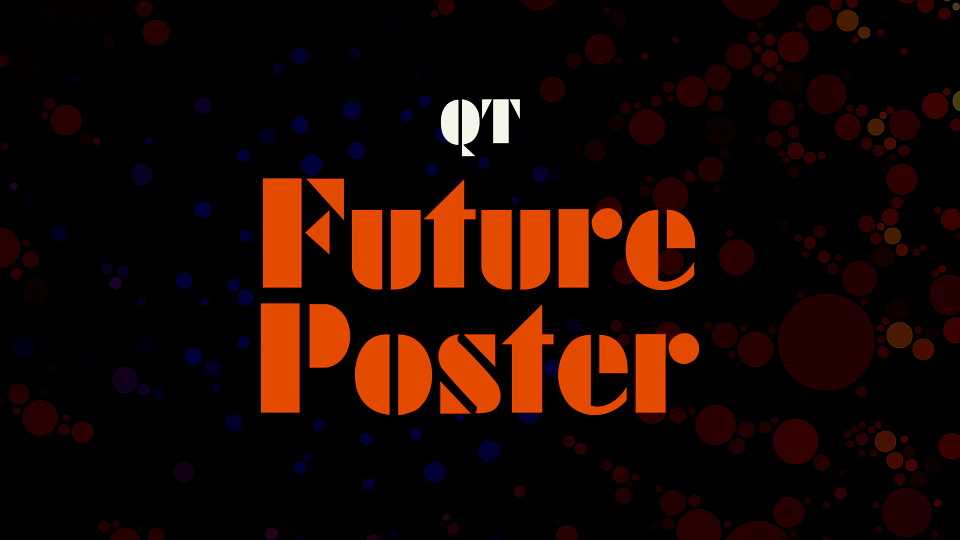
Download Future Poster font, a heavy stencil display typeface, based on the Futura Black, designed by Paul Renner and first released by Bauer in 1929.